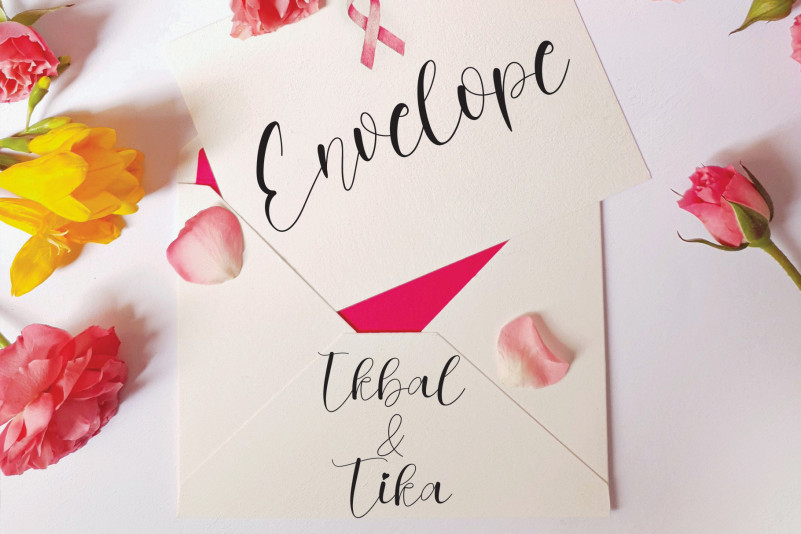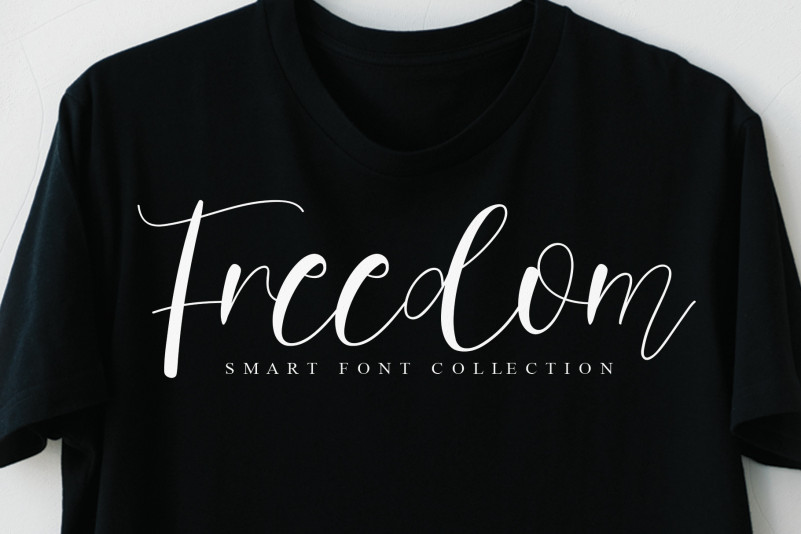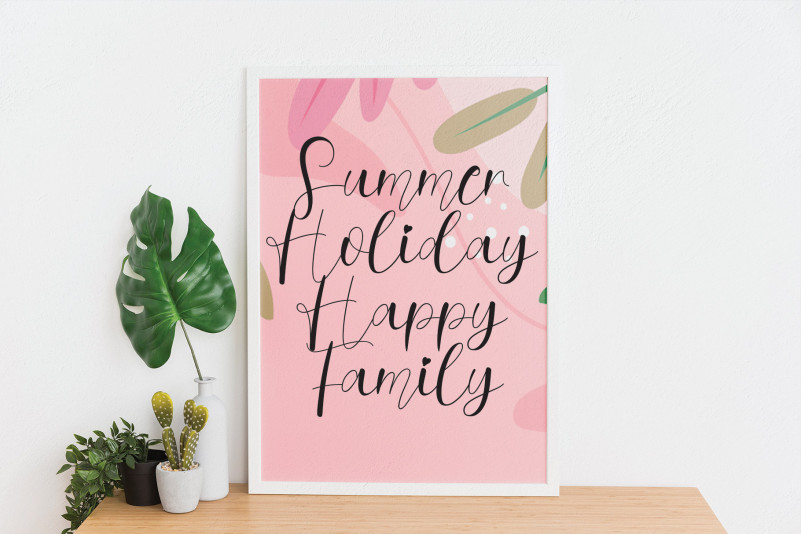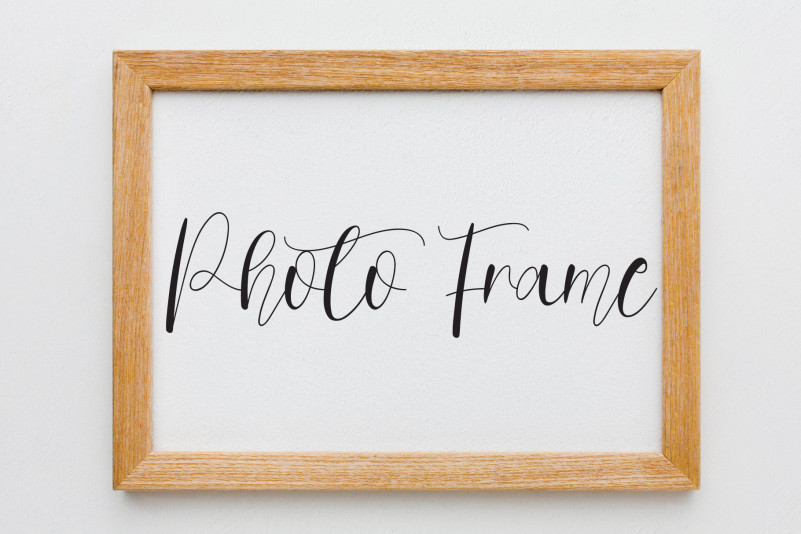
Butterly Calligraphy Font
This is an exquisite handwritten font that looks cheerful and cozy. Add it to logos, watermarks, photography, labels, name tags, or any other lovely project that needs a handwritten touch!
the latest style letters are perfect for wall displays, wedding invitations, social media post logos, advertisements, product packaging, product designs, labels, photography, watermarks, invitations, stationery, and any project that requires taste handwriting.